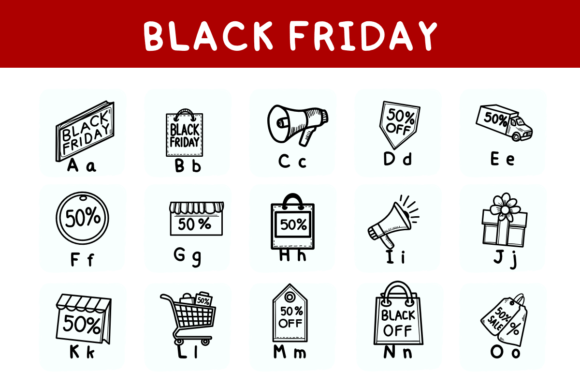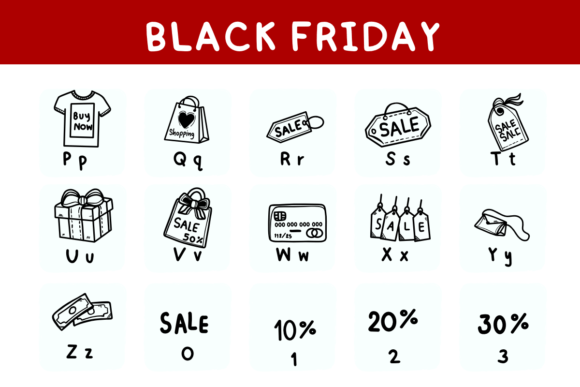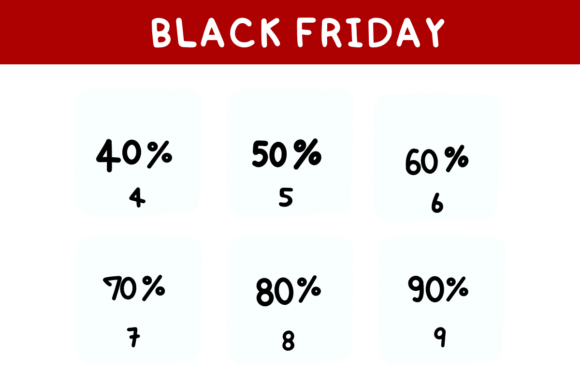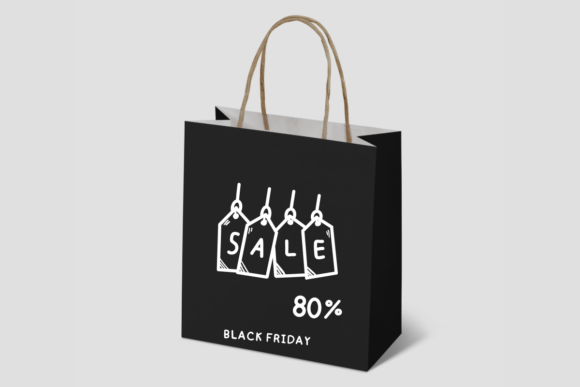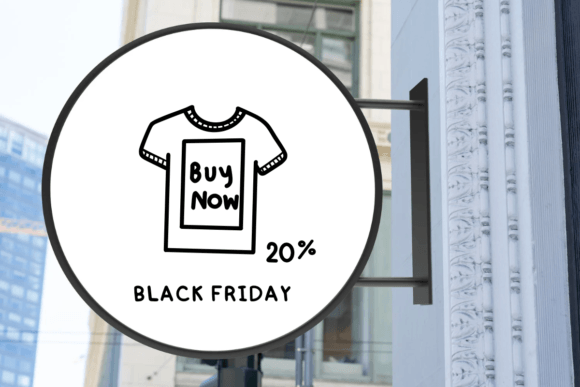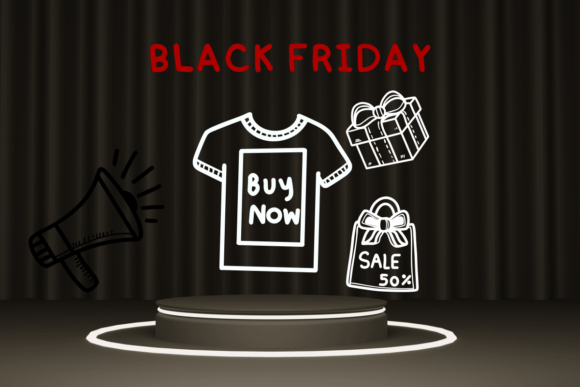
The Perfect Font for Your Black Friday Designs
Have you ever been brainstorming a design idea and suddenly, inspiration strikes? You see a vision of a playful poster or a whimsical craft project, but you’re stuck on finding the right font to bring it to life. That’s where the Black Friday Doodle Font comes in – a fun dingbat font that’s specifically designed to add a touch of creativity to your designs.
This adorable font features cute and simple drawings related to Black Friday shopping, from shopping bags to sale tags and gift boxes. With the Black Friday Doodle Font, you can add a playful twist to your designs, making them stand out from the crowd. Whether you’re a designer, crafter, or small business owner, this font is a valuable asset to have in your toolkit.
Key Features of Black Friday Doodle Font
- Unique Doodle Style: The font features a playful, doodle-style design with intricate details and patterns, perfect for adding a touch of whimsy to your designs.
Designer Review: Black Friday Doodle Font
I recently had the chance to play around with the Black Friday Doodle Font, and I must say, it’s a unique addition to any design project.
Here’s what I think works well:
- ✨ The font’s hand-drawn, doodle-like aesthetic adds a playful touch to any design, making it perfect for social media posts, advertisements, and even holiday-themed content.
- ✨ The font’s versatility shines through in its various styles and weights, allowing designers to experiment with different looks and feels.
- ✨ The font’s OpenType features make it easy to customize and combine with other fonts for a truly unique look.
However, I do have a few concerns:
- ⚠️ The font’s readability can be a bit of a challenge, especially in smaller sizes or when used in body text.
- ⚠️ Some of the characters may not be compatible with all operating systems or devices, which can lead to display issues.
Overall, I’d say the Black Friday Doodle Font is a fun and creative addition to any design project. While it may have some limitations, its unique aesthetic and versatility make it a great choice for designers looking to add some personality to their work.